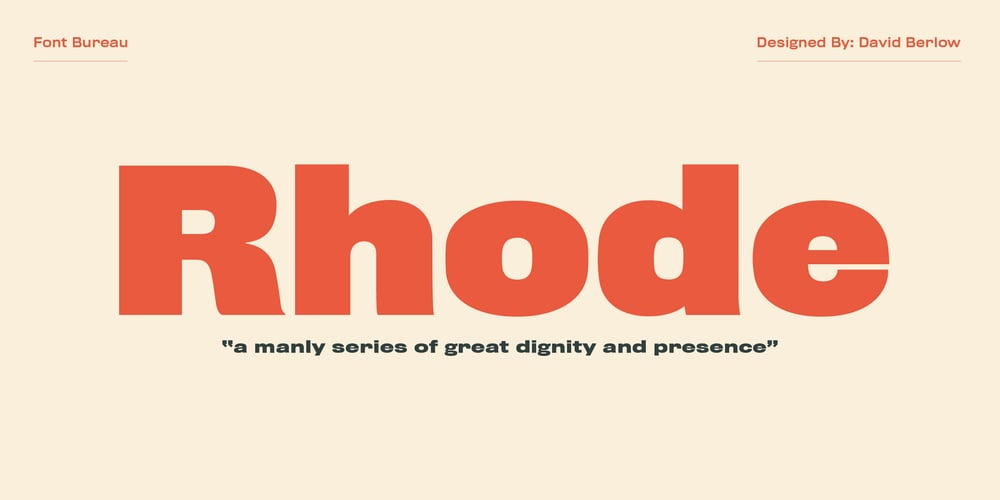
Rhode
Rhode font
Rhode Font Family was designed by David Berlow and published by Font Bureau. Rhode contains 16 styles and family package options. Generous curves above and below the straight-sided Railroad Gothic parallel those of Figgins’s elephantine Grotesques, lending to both British and American series their monumental qualities. Shrinking the center strokes and counters to emphasize a massive periphery, David Berlow has used this curious similarity to suspend a complete family of sanserifs between the two forms, a manly series of great dignity and presence; FB 1997